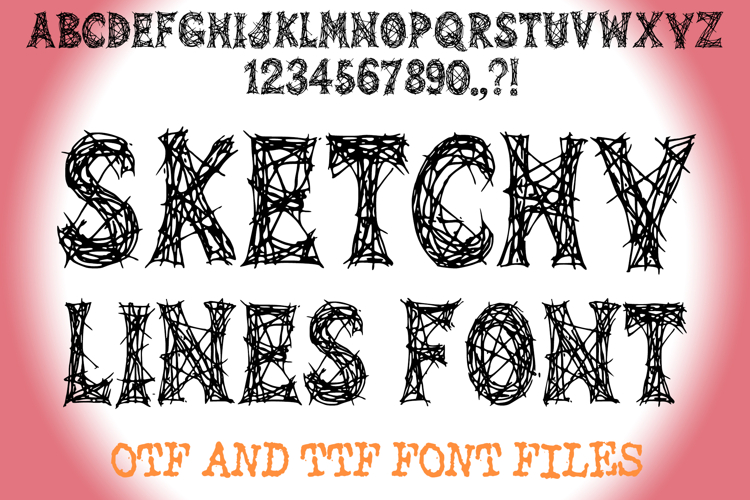
Sketchy Lines Alphabet Lettering ABC Spiderweb Text Font OTF
A scratchy style font where you can create your own words and colour them to your vision!